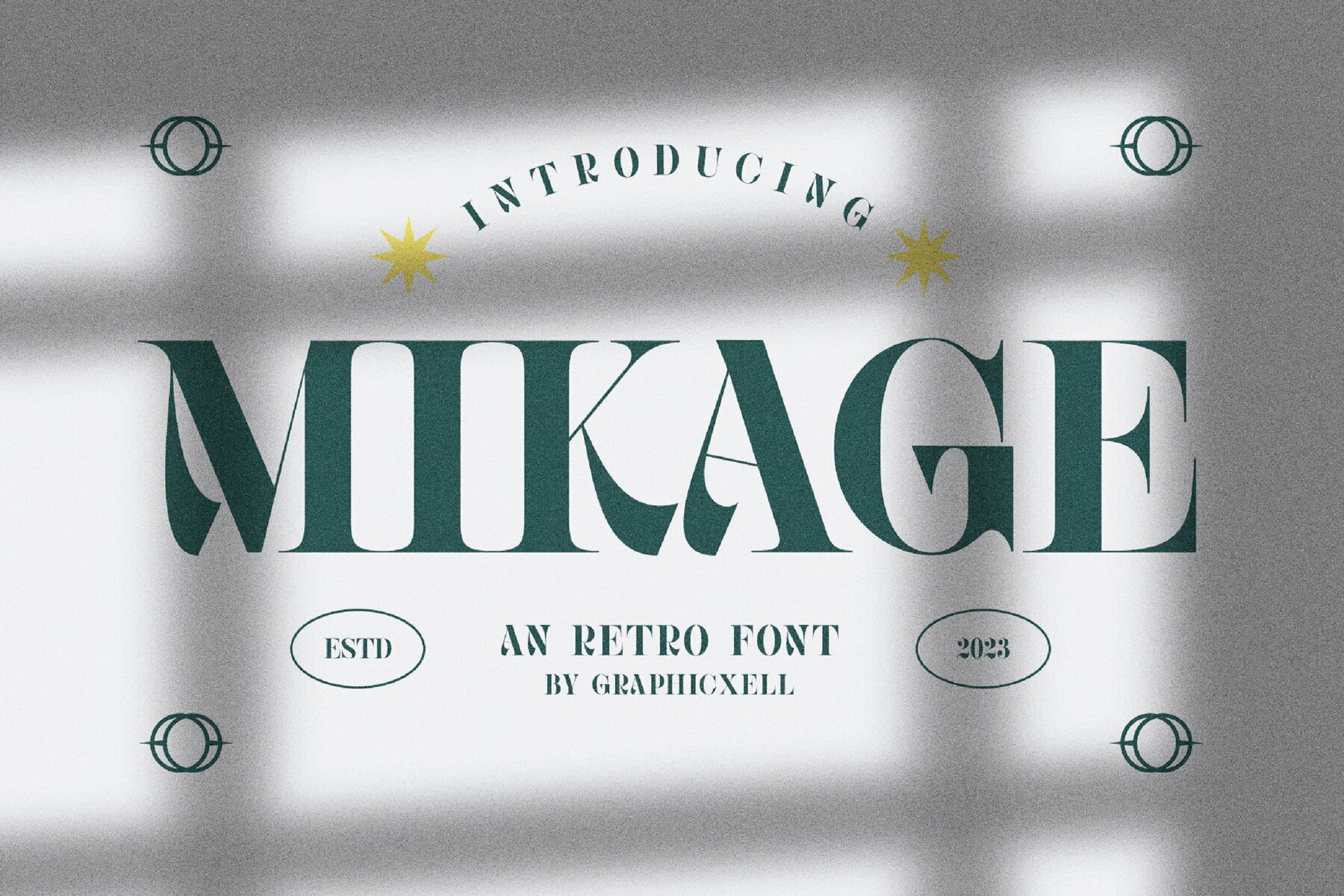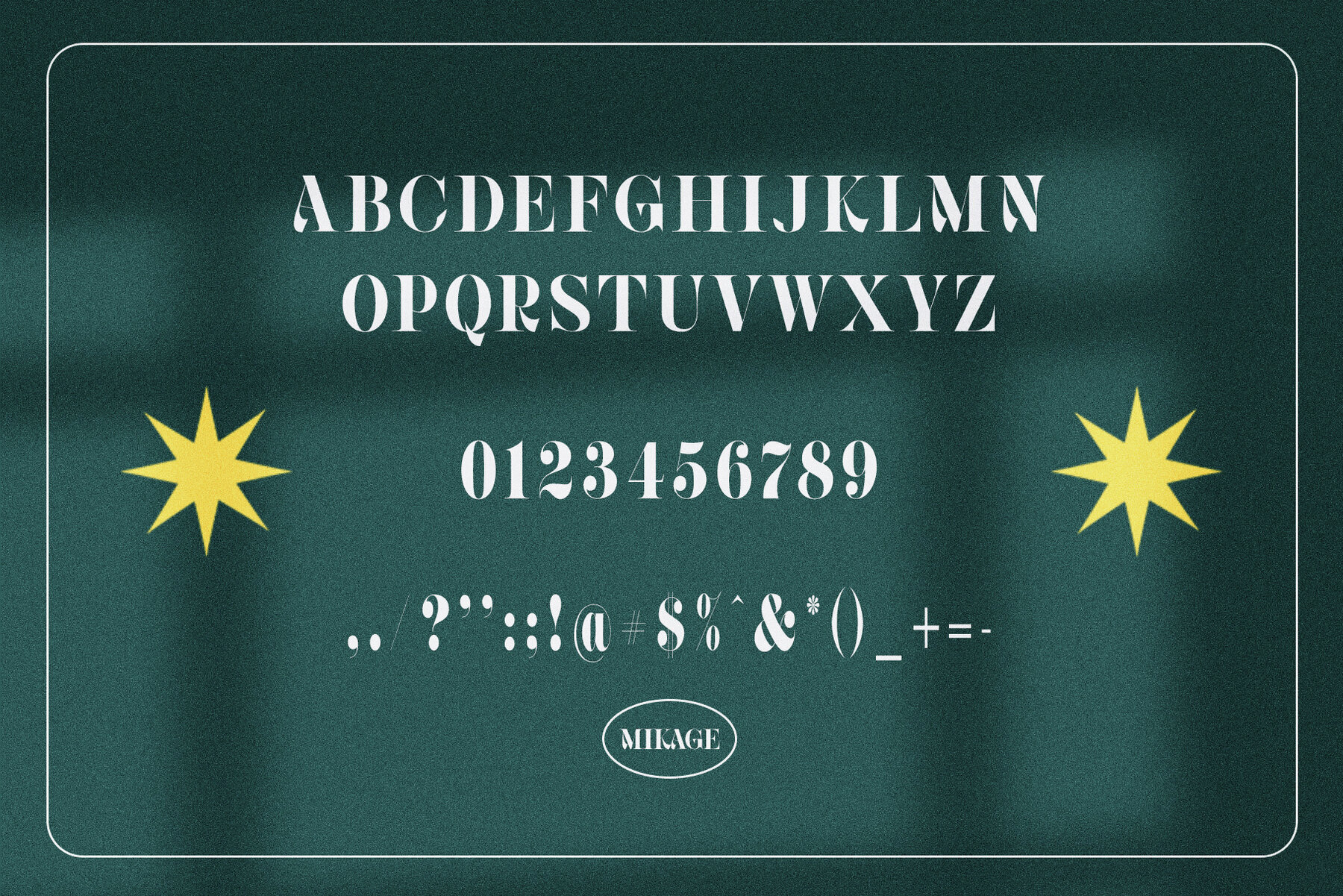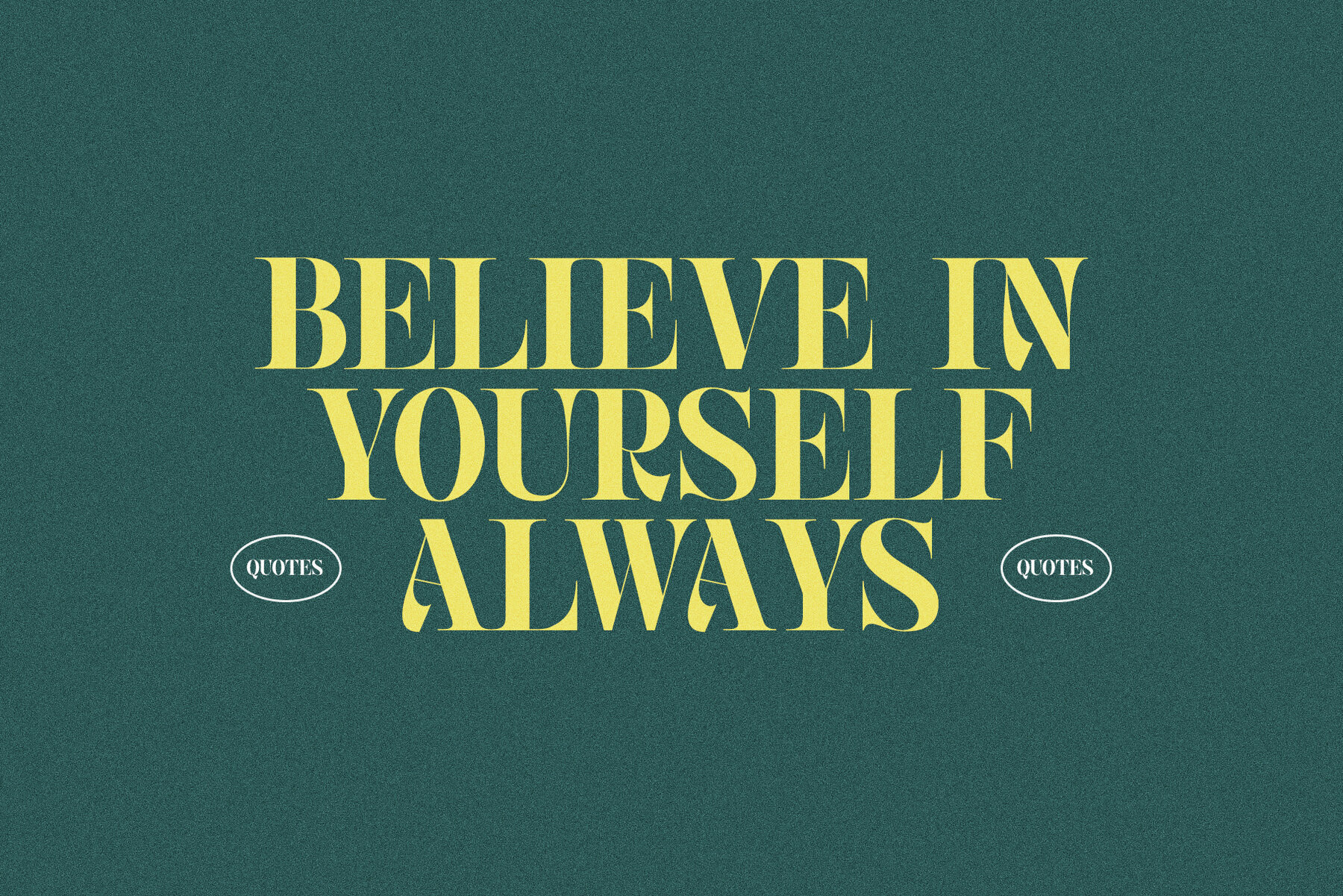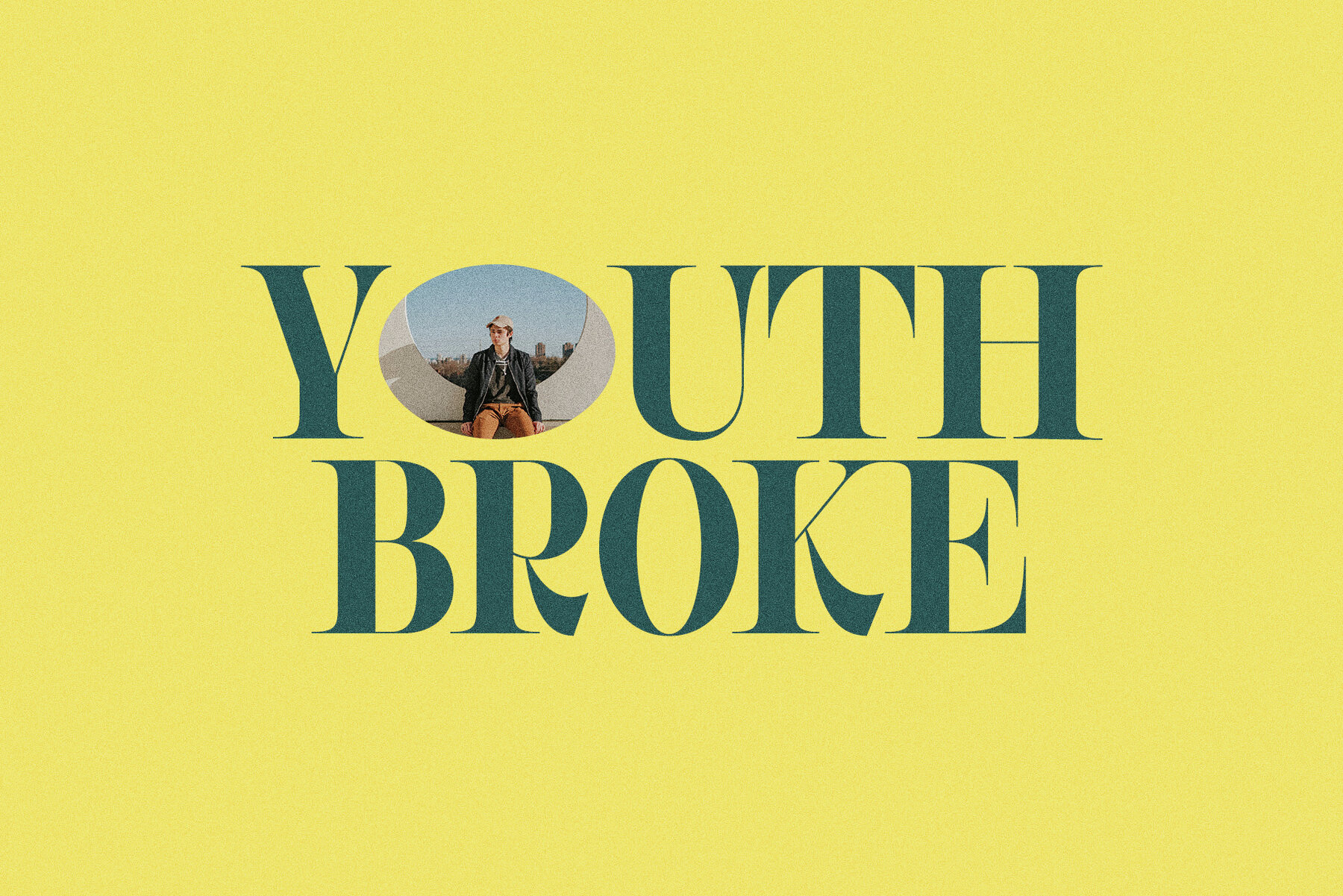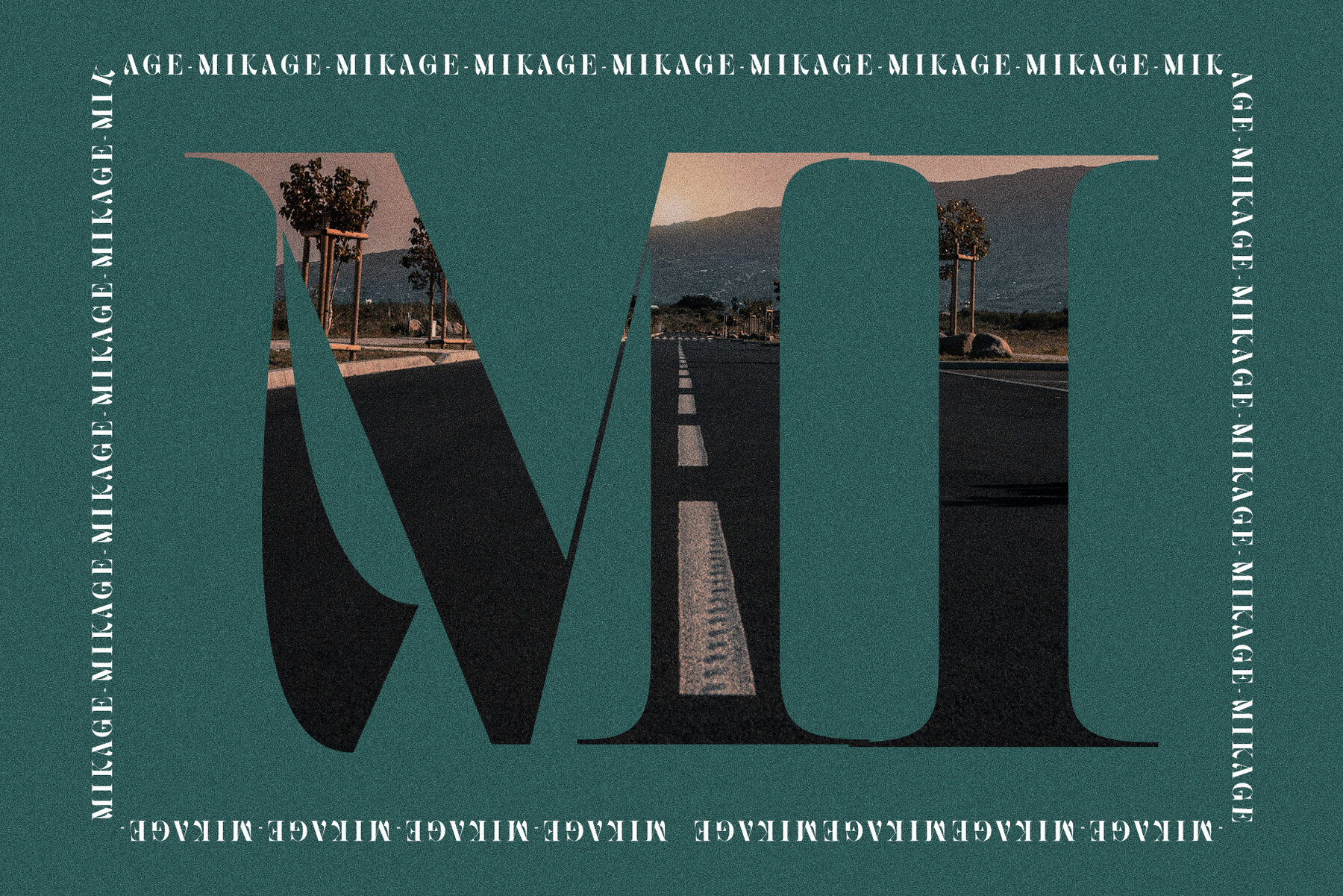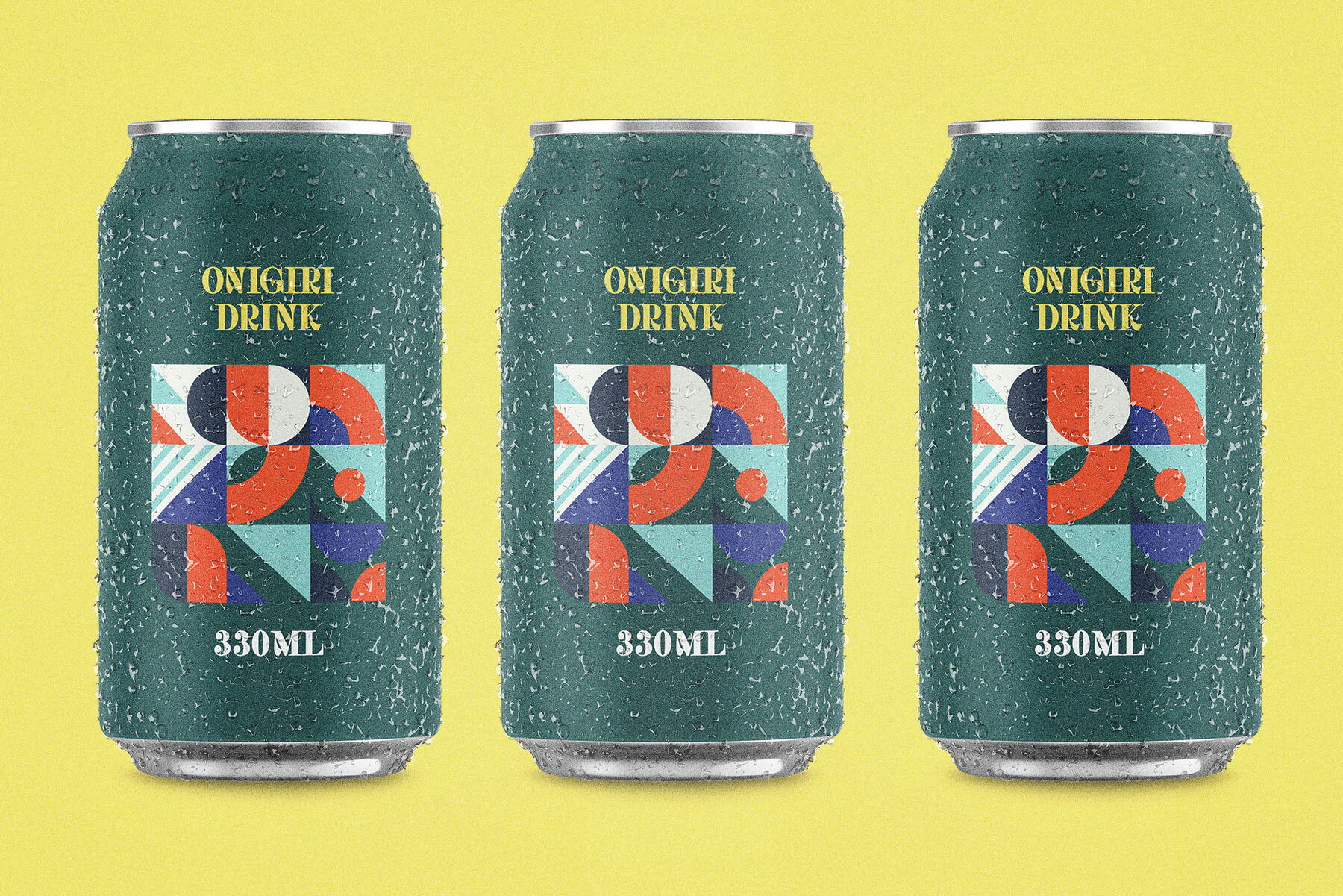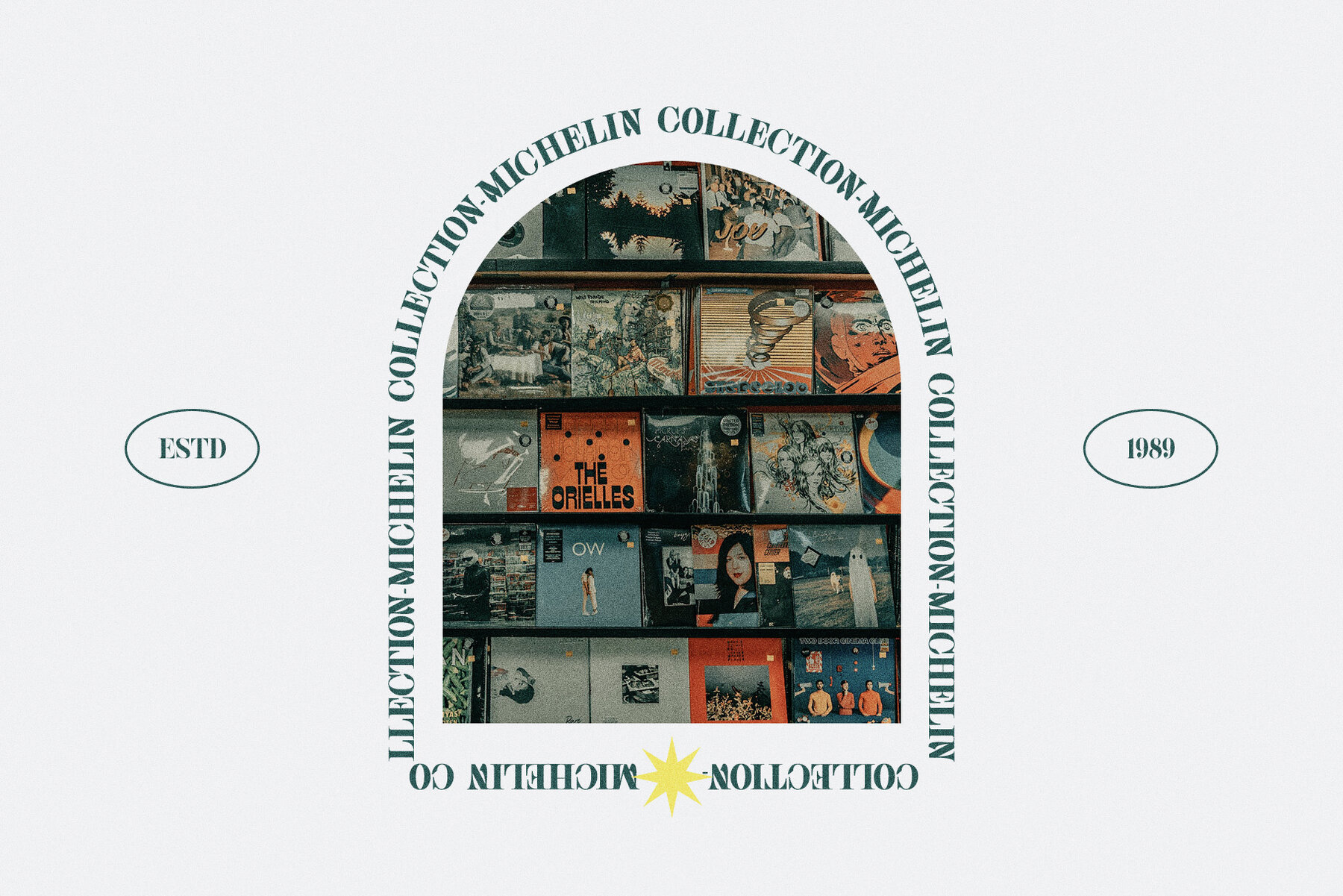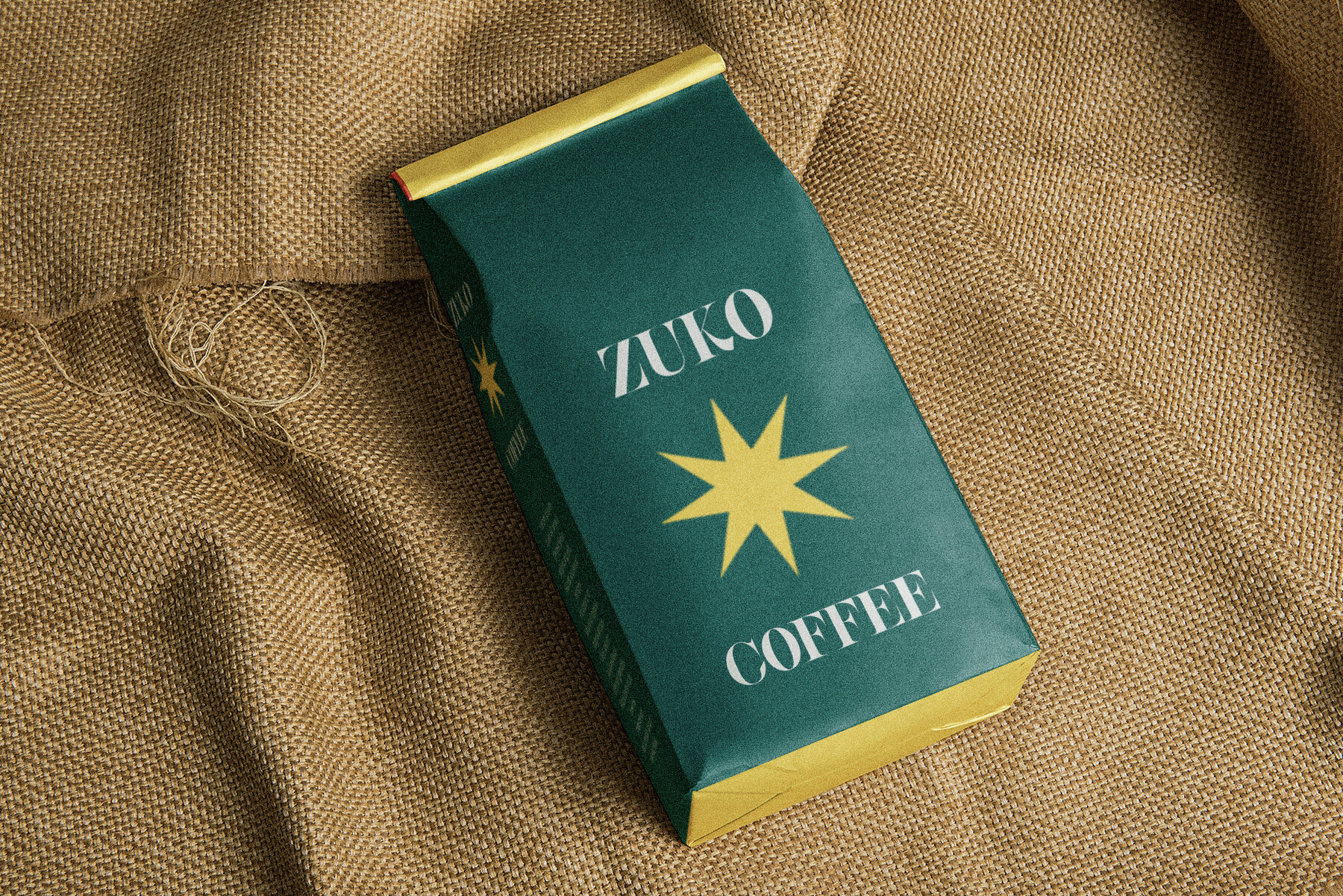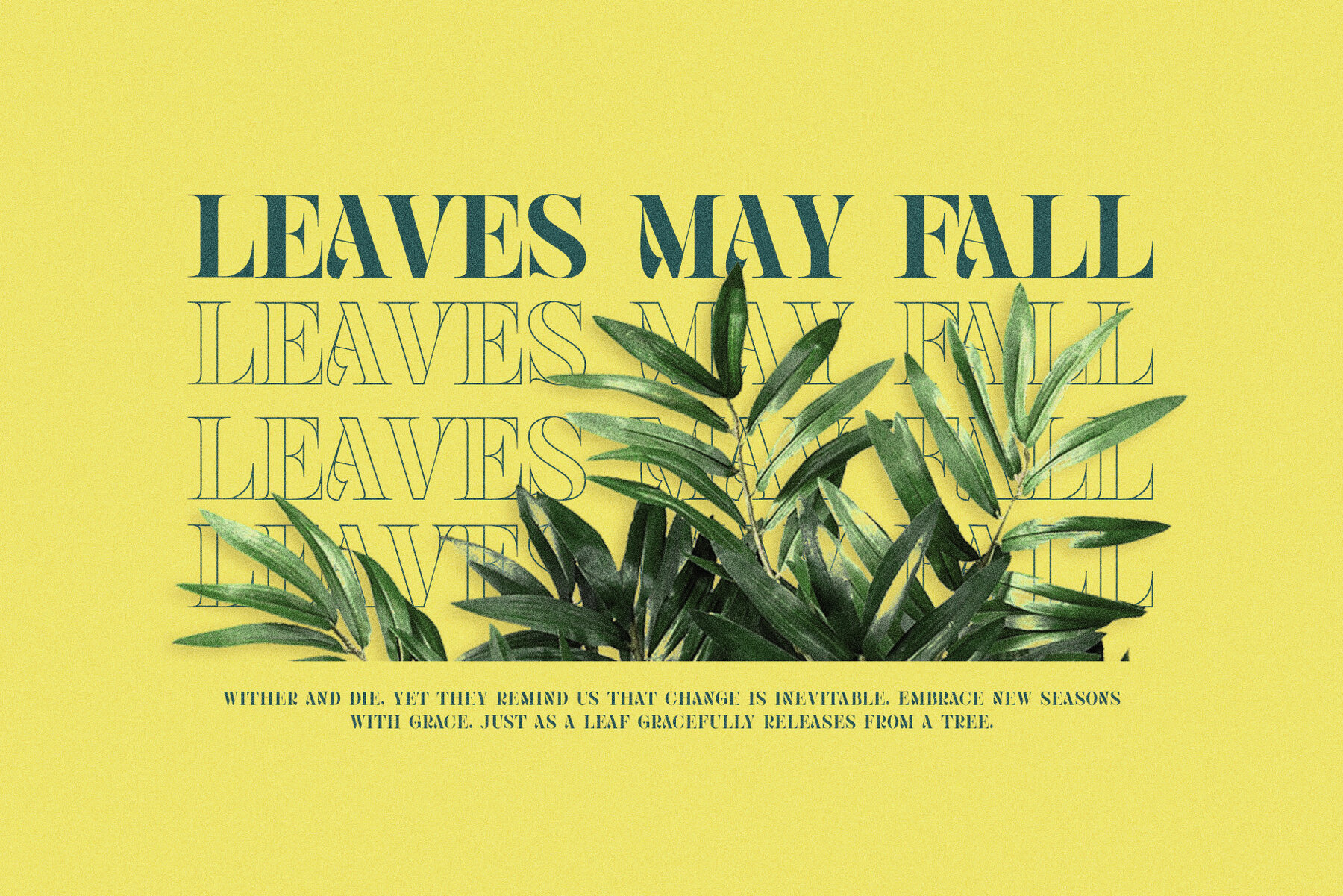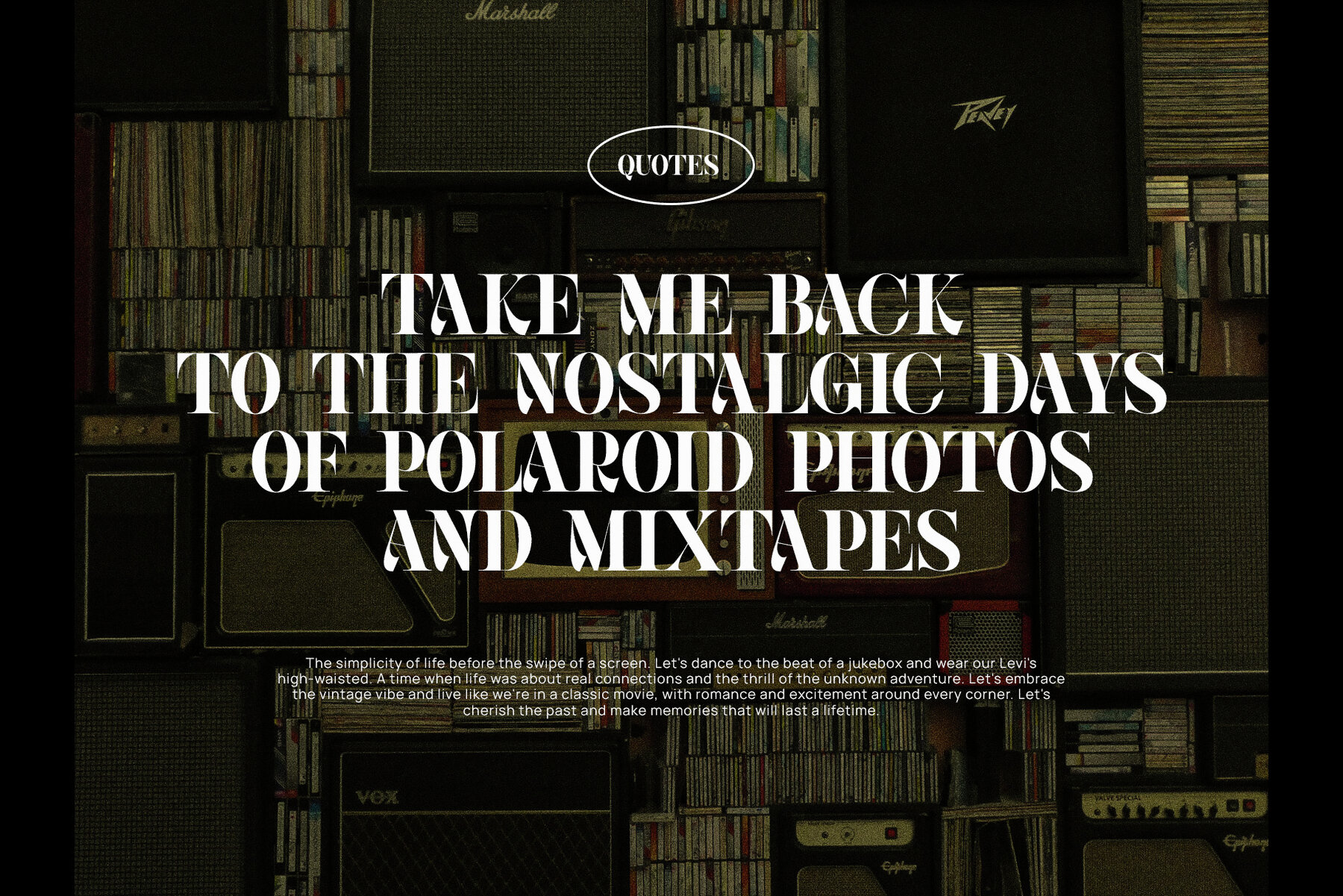
Mikage
Mikage is a distinctive and elegant serif typeface, perfect for branding and logo design. With its combination of classic and modern style, it’s suitable for a range of projects, including wedding designs, social media posts, advertisements, product packaging, labels, photography, watermarks, invitations, and stationery. This font is crafted for a high level of readability. For the best experience, it is recommended to use Adobe Illustrator or Adobe Photoshop. If you have any questions, feel free to reach out.Mikage: Elegant Serif Font for Branding